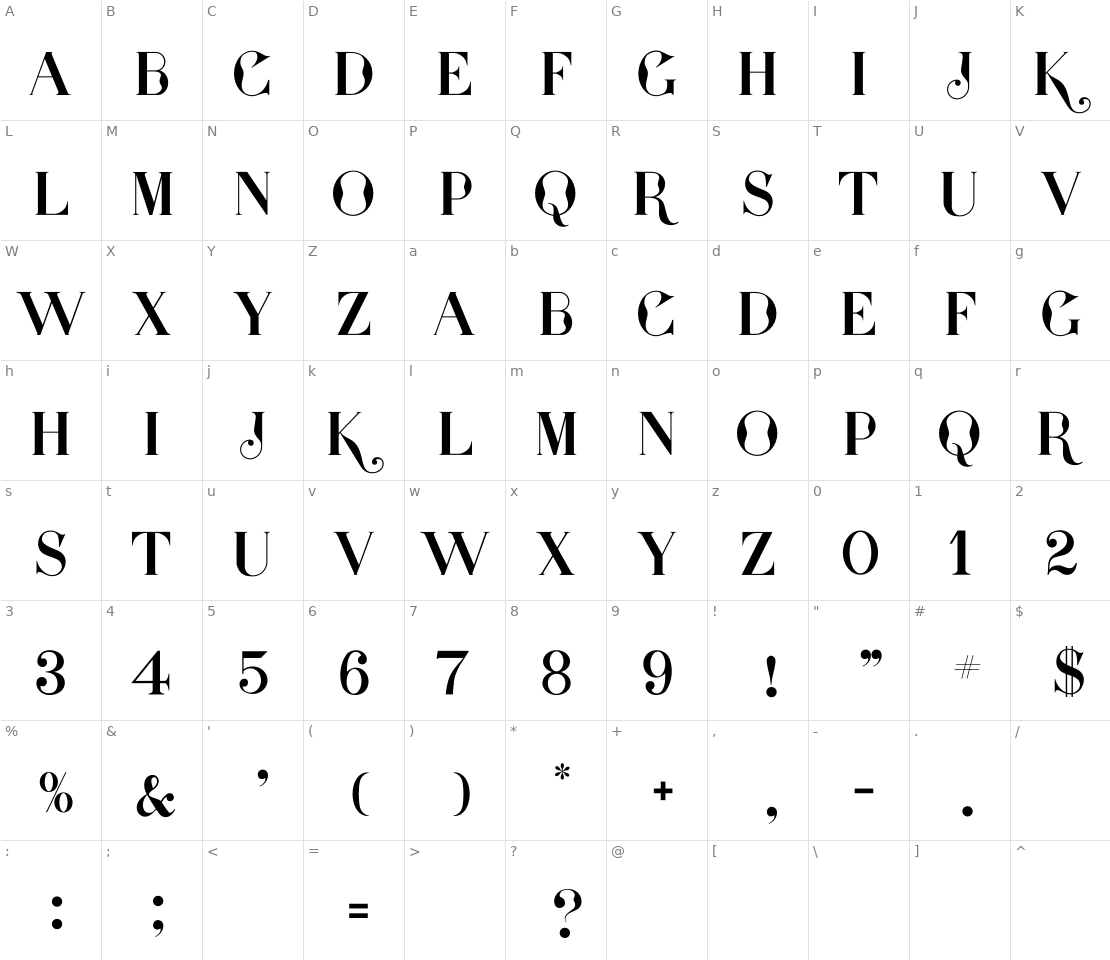
Presidente Serif
Presidente Serif is a high-contrast display serif from typelinestudio with bold strokes and sharp tonal shifts between thick and thin that give it a distinctly luxurious, editorial presence. The letterforms carry real elegance without feeling fragile, striking a balance between decorative flair and structural confidence. Built for headlines, mastheads, and luxury branding where the type itself needs to feel like the centerpiece.